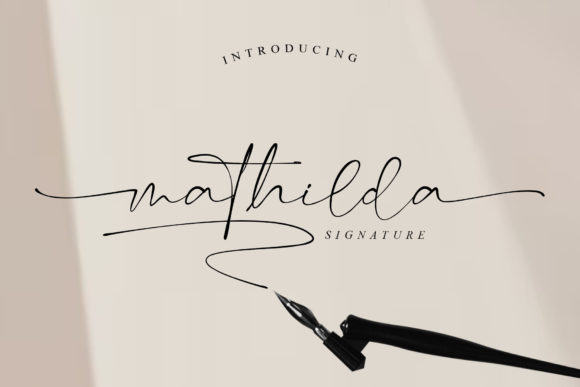
Welcome to the world of Mathilda Signature, where elegance meets sophistication in a handwritten script font! With its delicate strokes and stylish curves, Mathilda Signature is not just a font; it's an artistic expression that will transform your creative projects into masterpieces. Let your imagination soar as you explore the endless possibilities this exquisite font offers.
Dive into the realm of branding and let Mathilda Signature weave its magic. Its graceful lines and charming personality will create a lasting impression, leaving your audience captivated. Design logos, business cards, and marketing materials that exude professionalism and artistry. With Mathilda Signature, your brand will stand out from the crowd, leaving an indelible mark on the minds of your customers.
For those planning their dream wedding, Mathilda Signature is the perfect companion to capture the essence of love and romance. Create personalized wedding invitations, menus, and signage that reflect the unique bond you share with your loved one. Its delicate details will add a touch of elegance to every element, making your special day truly unforgettable.
Unlock your creative potential and explore the myriad of possibilities that await you with Mathilda Signature. Its versatile nature makes it an ideal choice for a wide range of projects, from promotional posters and product packaging to social media graphics and online content. Elevate your designs to new heights and captivate your audience with the timeless beauty of Mathilda Signature.
For those who seek artistic expression, Mathilda Signature is a treasure trove of inspiration. Its flowing strokes and intricate ligatures invite you to explore the realms of calligraphy and hand-lettering. Create personalized quotes, wall art, and greeting cards that reflect your unique style and creativity. With Mathilda Signature, the possibilities are limitless.